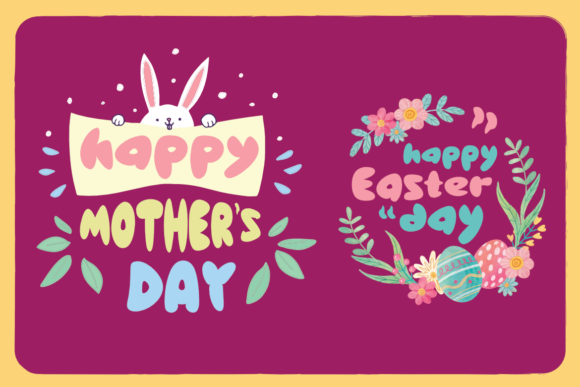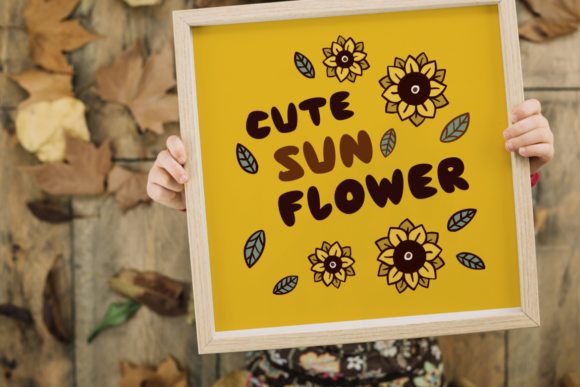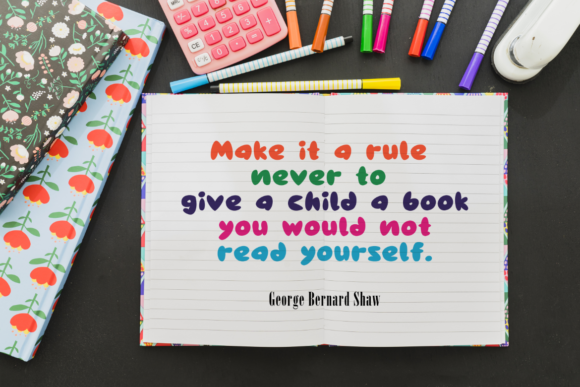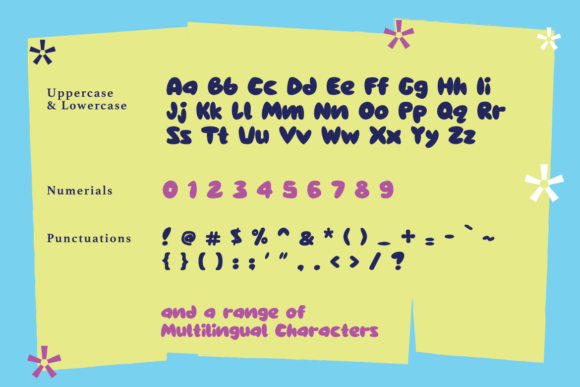
Discover the Charm of Blubtoon Font: Elevate Your Design Projects with Whimsy and Wonder
Are you tired of using the same old fonts in your design projects? Look no further than Blubtoon Font, a cute and whimsical handwritten font that’s sure to add a touch of magic to any design. With its incredible charm and youthful appeal, Blubtoon Font is the perfect choice for designers and crafters looking to create something truly special.
What is Blubtoon Font?
Blubtoon Font is a unique and charming handwritten font that’s designed to bring a sense of whimsy and fun to your design projects. Its playful and carefree vibe makes it perfect for a wide range of applications, from children’s books and educational materials to branding and advertising campaigns.
The Characteristics of Blubtoon Font
So, what sets Blubtoon Font apart from other fonts? Here are just a few of its key characteristics:
- Cute and Whimsical: Blubtoon Font is a truly one-of-a-kind font that’s sure to capture the hearts of designers and audiences alike. Its playful and whimsical nature makes it perfect for projects that require a touch of personality and charm.
- Handwritten: Unlike generic, computer-generated fonts, Blubtoon Font is a handwritten font that’s been carefully crafted to convey a sense of warmth and personality.
- Youthful Charm: Blubtoon Font has a youthful energy that’s hard to resist. Its bouncy and carefree vibe makes it perfect for projects that require a sense of fun and playfulness.
How to Use Blubtoon Font in Your Design Projects
Blubtoon Font is incredibly versatile, making it suitable for a wide range of design projects. Here are just a few ideas to get you started:
- Children’s Books: Blubtoon Font is perfect for children’s books, educational materials, and activity sheets. Its playful and whimsical nature will help bring your story to life and engage young readers.
- Branding and Advertising: Use Blubtoon Font to add a touch of personality to your branding and advertising campaigns. Its unique and charming nature will help your brand stand out from the crowd.
- Crafting and DIY Projects: Blubtoon Font is also perfect for crafters and DIY enthusiasts. Use it to add a personal touch to your handmade cards, gift tags, and other projects.
Tips for Getting the Most Out of Blubtoon Font
Here are a few tips for getting the most out of Blubtoon Font:
- Experiment with Different Sizes: Blubtoon Font looks great in a variety of sizes, from large headings to smaller body text. Experiment with different sizes to find the perfect fit for your project.
- Pair it with Other Fonts: Blubtoon Font pairs well with a range of other fonts, from bold and modern to elegant and sophisticated. Experiment with different font combinations to find the perfect look for your project.
- Use it to Add Emphasis: Blubtoon Font is perfect for adding emphasis to key words or phrases in your design. Use it to draw attention to important information or to add a touch of personality to your text.
Blubtoon Font is a truly unique and charming font that’s sure to elevate your design projects to the next level. With its cute and whimsical nature, handwritten charm, and youthful appeal, it’s the perfect choice for designers and crafters looking to add a touch of magic to their work. So why wait? Download Blubtoon Font today and discover the power of whimsy and wonder in your design projects!